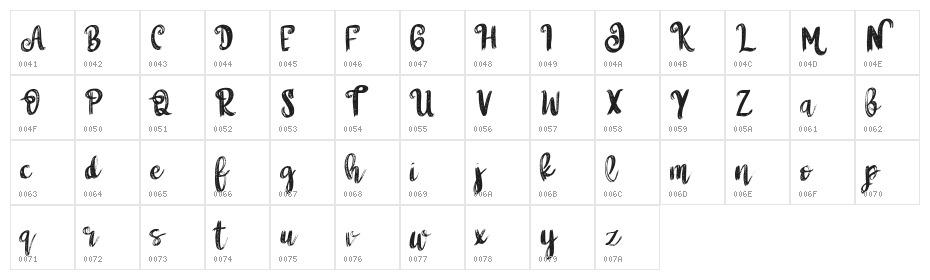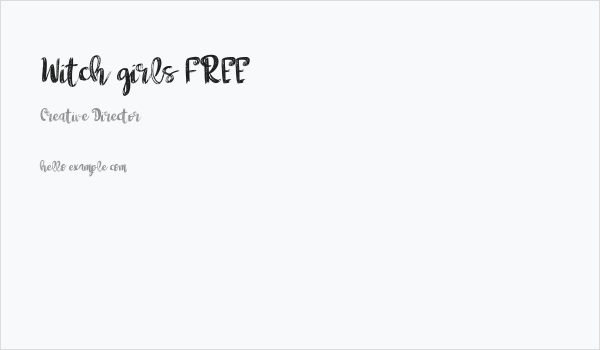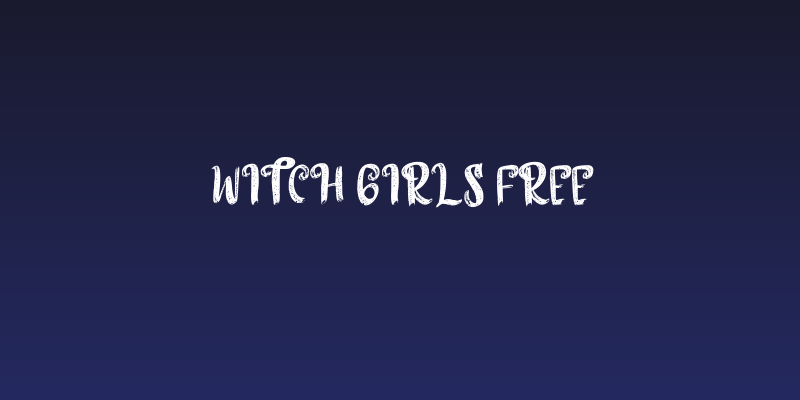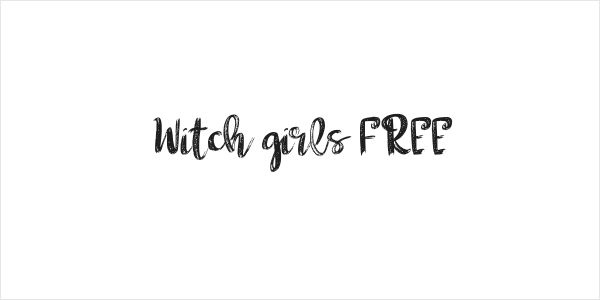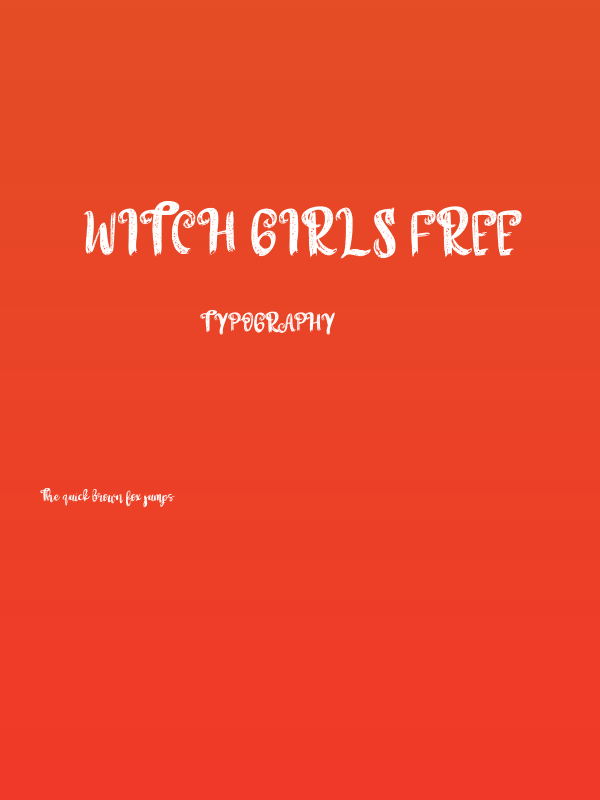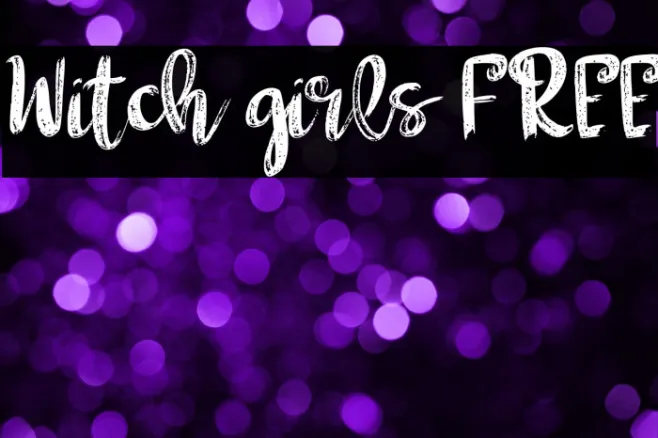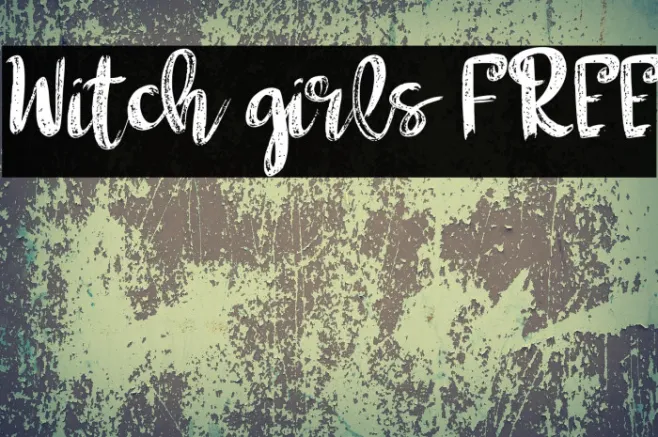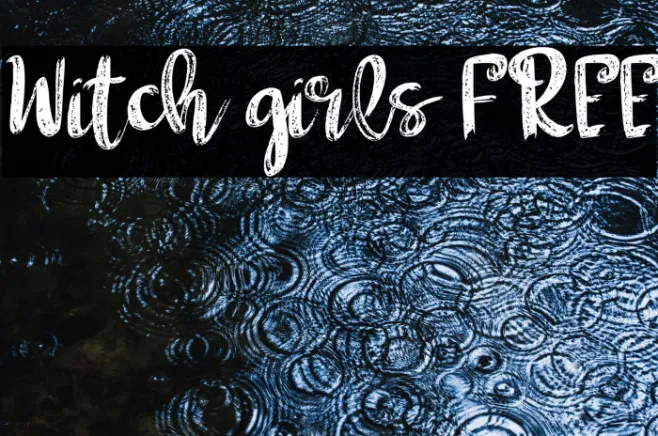
Witch girls FREE Font
Witch girls FREE Description
This font features a whimsical and playful script style with a hand-drawn appearance. The letters are bold and have a textured, distressed look, giving them a unique and artistic flair. The uppercase and lowercase letters are both highly stylized, with swirling curves and exaggerated strokes that add to the font's charm. The numbers and special characters maintain the same decorative style, making the font cohesive and versatile. It's perfect for projects that require a touch of creativity and personality.
| Proposed Projects | Ideal for greeting cards, invitations, posters, and branding projects that require a creative and artistic touch. |